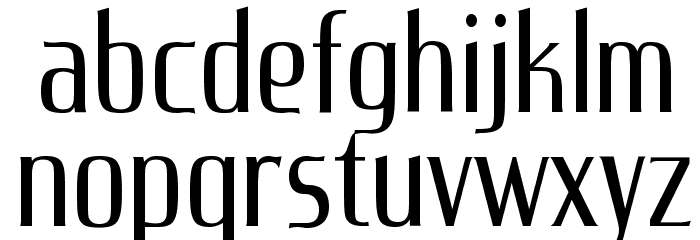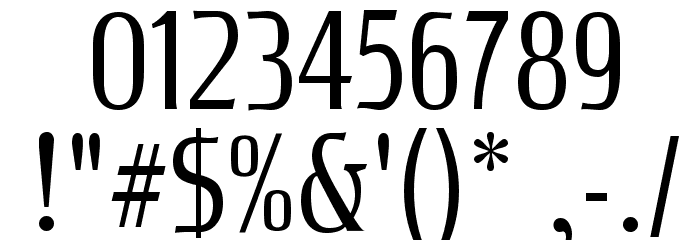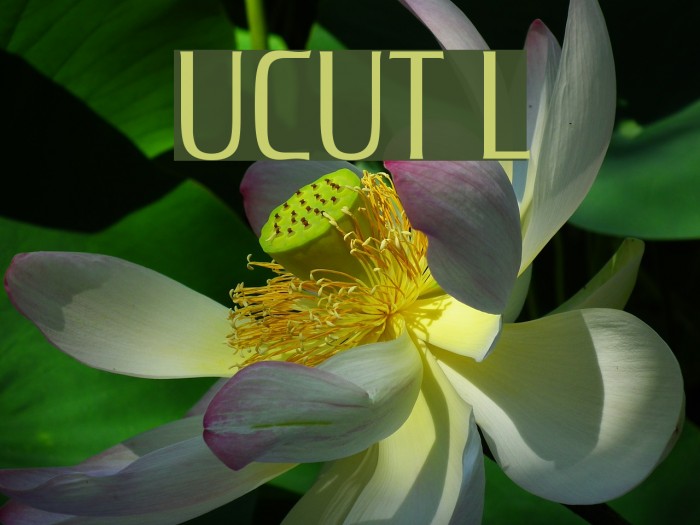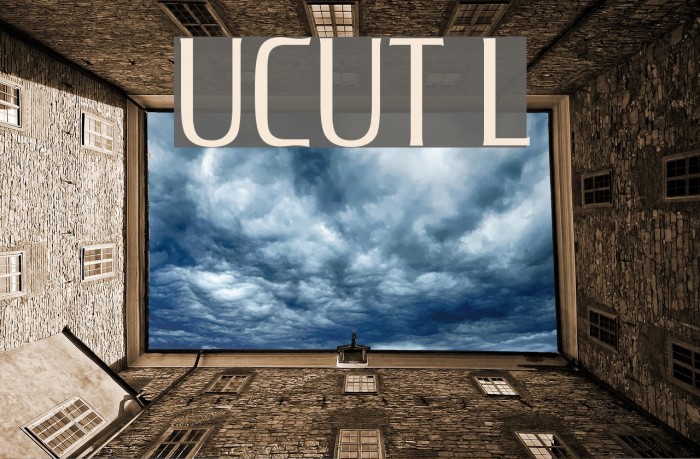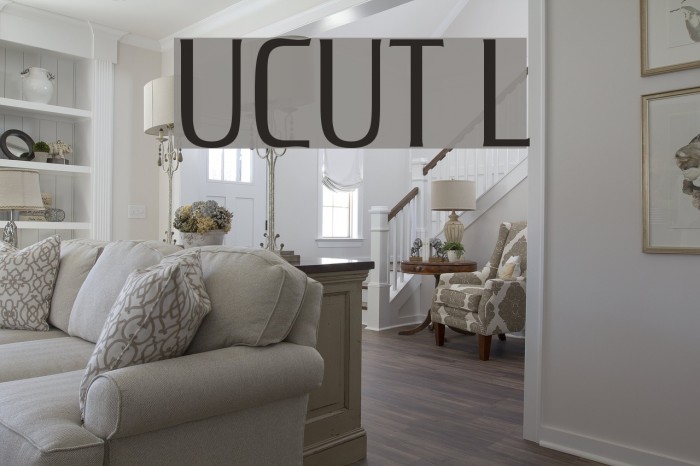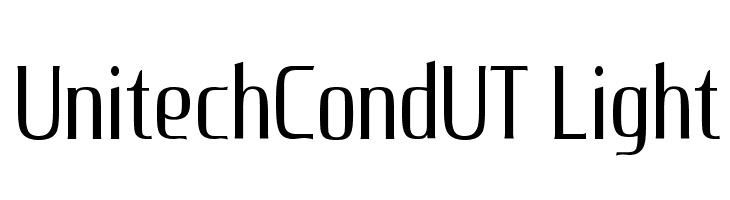
UnitechCondUT Light Font
This font exhibits a sleek and modern design with a condensed structure, making it ideal for space-saving applications. The characters are tall and narrow, with a consistent stroke width that gives it a uniform appearance. The uppercase letters are bold and assertive, while the lowercase letters maintain a clean and straightforward look. The numerals are clear and easy to read, complementing the overall style. Special characters are well-defined, adding versatility to the font. Its geometric forms and sharp edges contribute to a contemporary aesthetic, suitable for various digital and print media.
A modern, condensed font with a sleek and uniform appearance.
- Proposed Projects: Ideal for use in digital interfaces, advertising, branding, and editorial design where space is limited.
- Use Case: Headlines, Logos, Digital interfaces